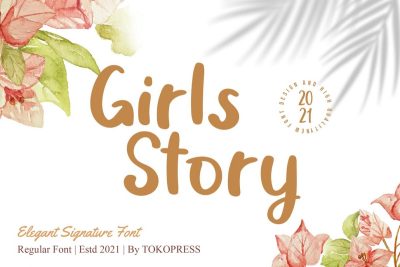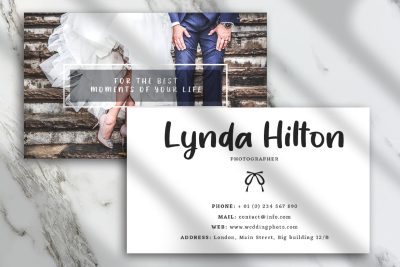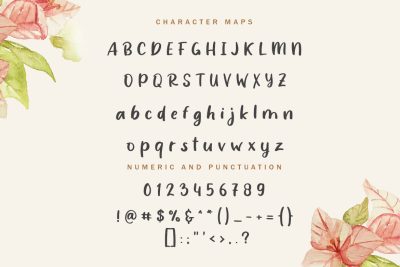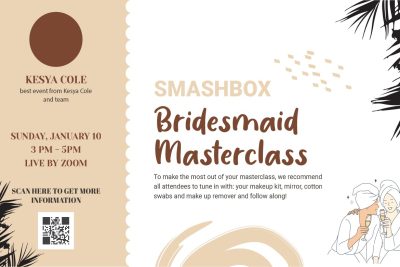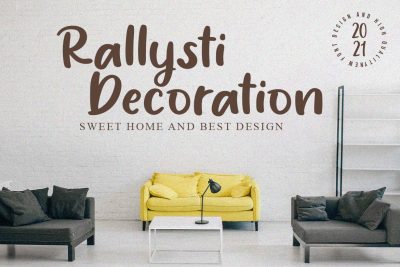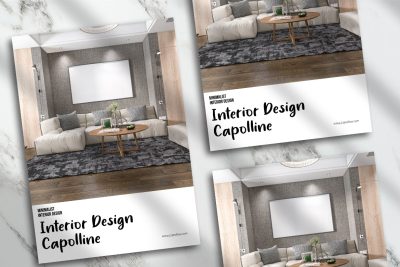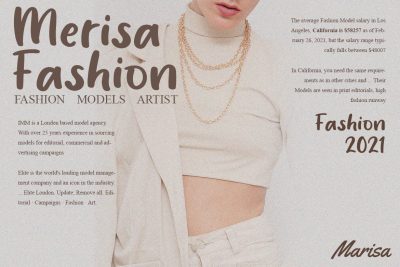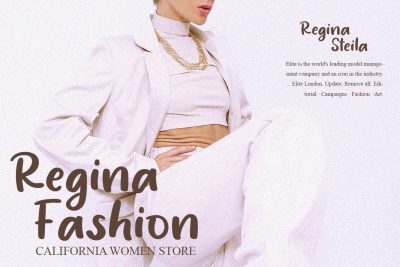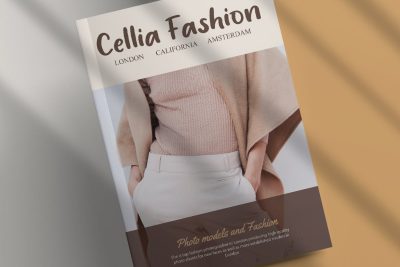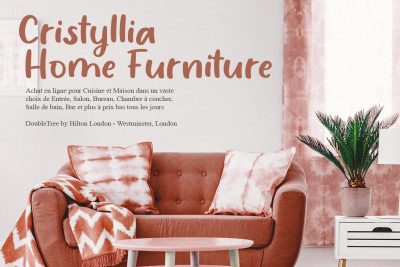
Handwriting font Girls Story is an elegant, refined typeface that adds femininity and sophistication to any design. With its smooth curves and natural flow, this font captures the essence of a handwritten signature. The result is a warm and graceful feel. Each letter in Girls Story has a relaxed yet stylish appearance, perfect for designs that need elegance with a casual charm. Its gentle strokes and delicate shapes bring a refined look, ideal for those seeking simplicity combined with beauty.
Additionally, handwriting font Girls Story is versatile, working well in both digital and print media. It looks beautiful on invitations, logos, social media graphics, and branding materials, adding a soft, personal touch. The fontโs distinct style stands out without overpowering the design, offering a balanced, easy-on-the-eyes appeal. Whether youโre creating wedding invitations, lifestyle branding, or heartfelt quotes, Girls Story adds elegance and warmth to your work.
Handwriting Font Girls Story Ideal Users
Girls Story is ideal for designers, lifestyle brands, and content creators focused on feminine and elegant themes. For example, wedding planners and stationery designers can use this font to create exquisite invitations, menus, and other wedding details. Its delicate strokes and charming style give wedding materials a romantic feel, setting a warm, intimate tone. Additionally, Girls Story works well for bridal showers, baby showers, and other celebrations that need an elegant touch.
Lifestyle brands in fashion, beauty, or wellness can also benefit from Girls Story. The fontโs graceful appearance makes it ideal for logos, product packaging, and social media posts. Its handwritten style adds a personal touch that resonates with audiences seeking authenticity. Beauty brands, for instance, can use it on product labels to create a chic, inviting look.
Moreover, social media influencers and bloggers in fashion, lifestyle, or wellness can enhance their branding with Girls Story. This font is perfect for quote graphics, social media banners, and branding materials needing a soft, feminine touch. Girls Storyโs elegant design helps create a cohesive look, making content visually appealing and professional. Overall, handwriting font Girls Story is an excellent choice for anyone seeking elegance, warmth, and personality in their designs. It leaves a lasting impression on viewers.